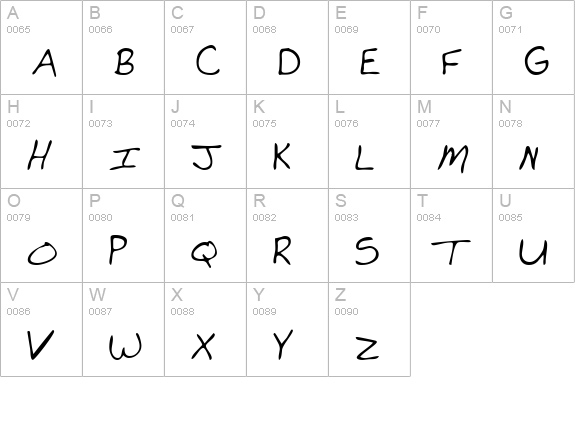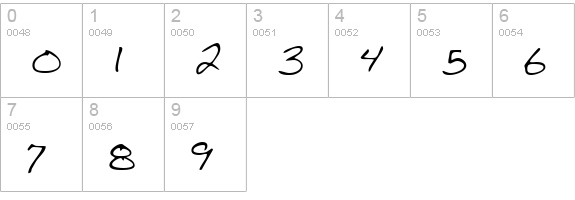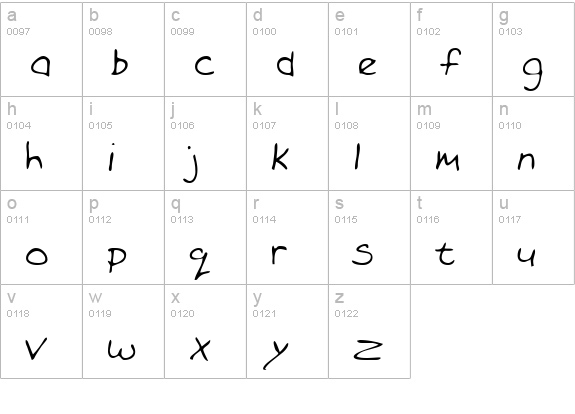
ForrestsHand Font Details
ForrestsHand font is a whimsical and elegant typeface that embodies the beauty of nature and the fluidity of hand-drawn lettering. With its organic lines and playful curves, this font evokes a sense of creativity and charm. Perfect for adding a touch of personality to your projects, ForrestsHand is versatile and can be used for a variety of design purposes. Best of all, ForrestsHand font is available for free download at FontsMarket.com. Whether you're working on a greeting card, logo design, or any other creative project, this font is sure to make a statement. Embrace the beauty of handwritten typography with ForrestsHand and let your creativity flow freely.